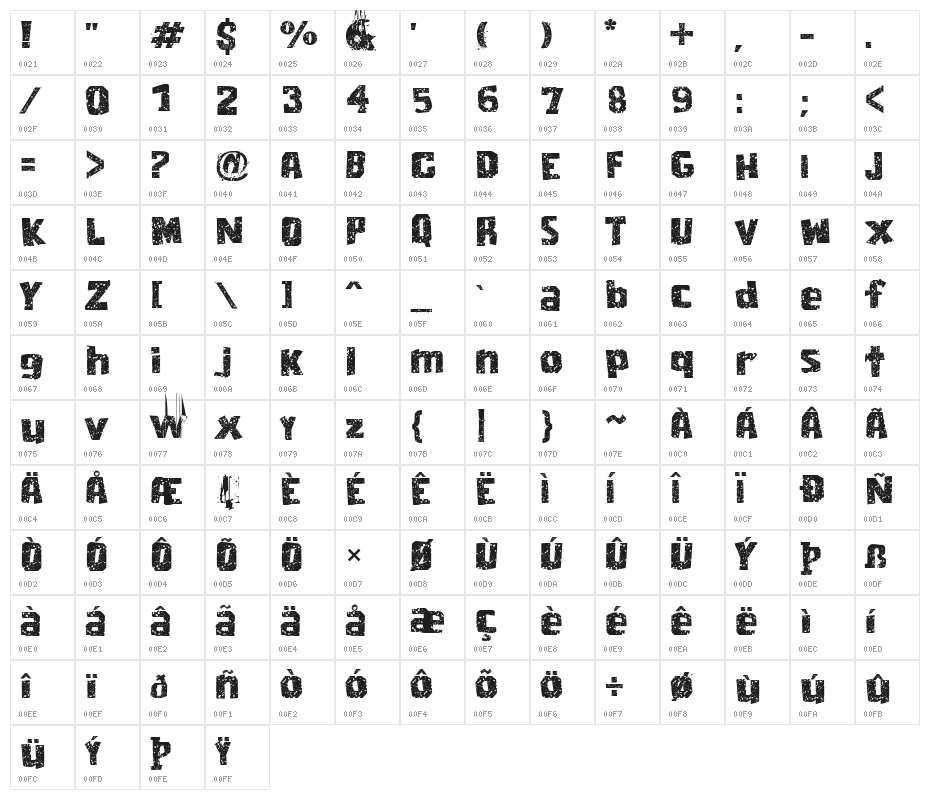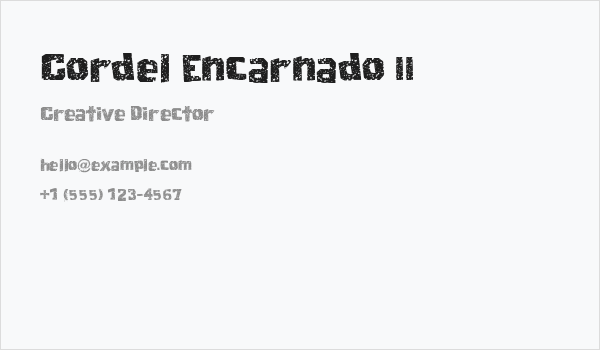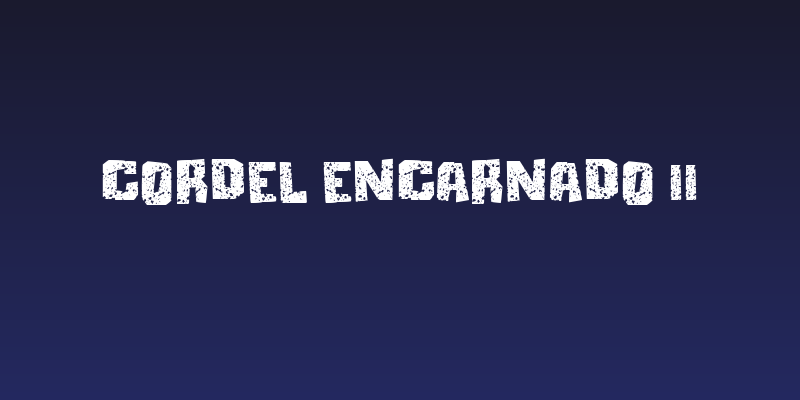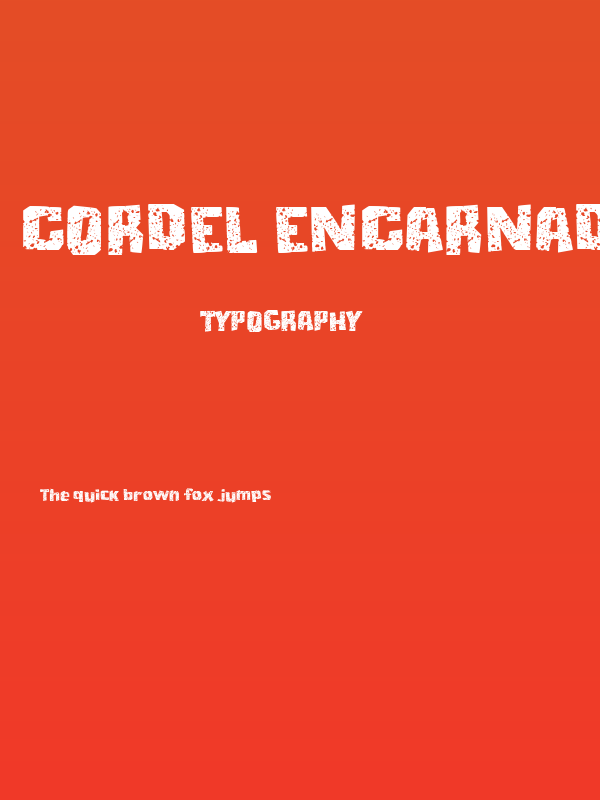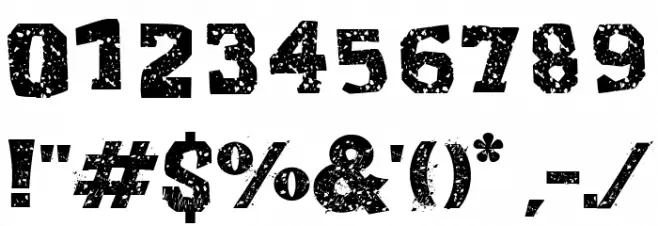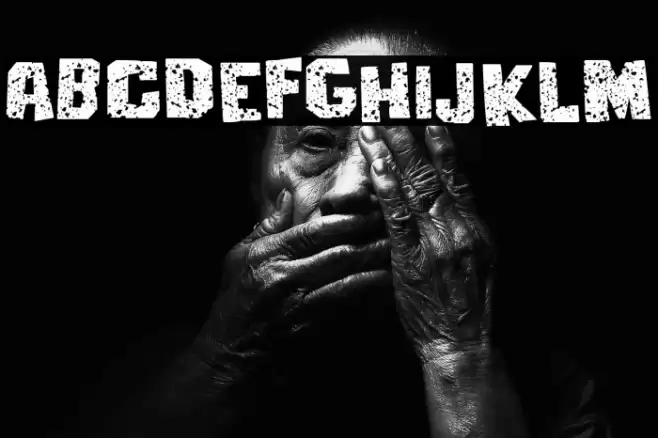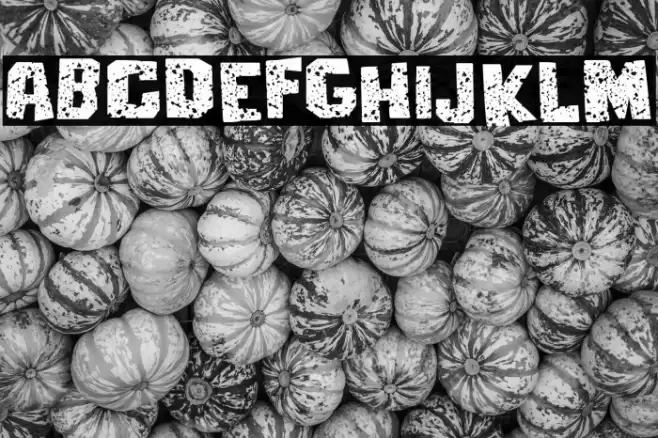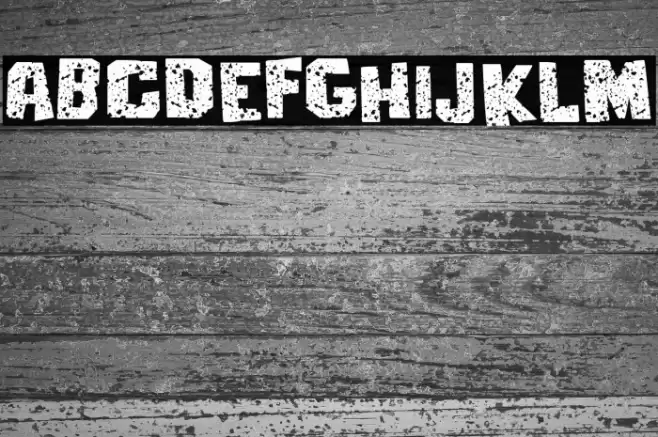
Cordel Encarnado II Font
Cordel Encarnado II Description
This font features a bold, distressed style with a textured appearance that mimics the look of worn or aged surfaces. The characters are blocky and robust, with irregular edges and a speckled pattern that adds a gritty, rustic charm. The uppercase and lowercase letters maintain a consistent weight, while the numbers and special characters follow the same rugged aesthetic. This font is reminiscent of vintage printmaking techniques, giving it a handcrafted feel that stands out in any design.
| Overall Style | Vintage |
| Proposed Projects | Ideal for projects that require a rustic or handcrafted look, such as posters, album covers, branding for artisanal products, or any design that seeks to convey a sense of authenticity and character. |